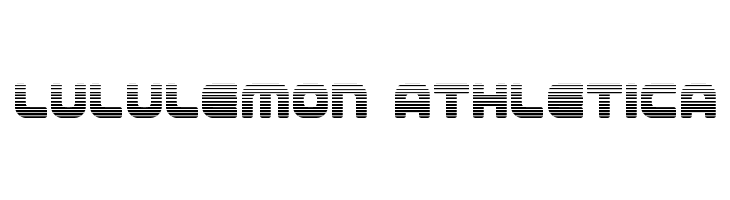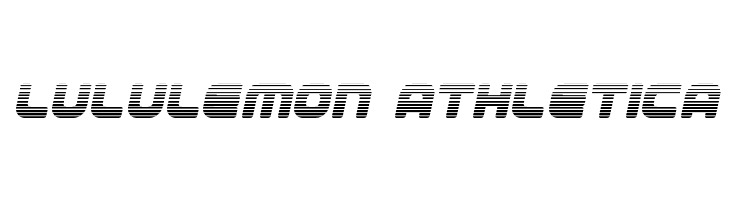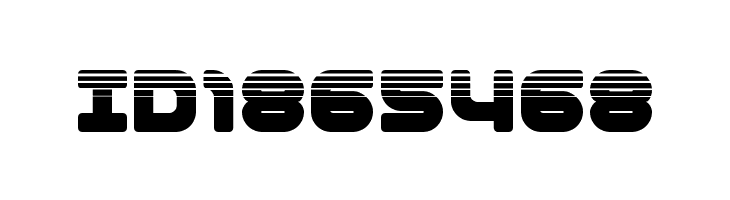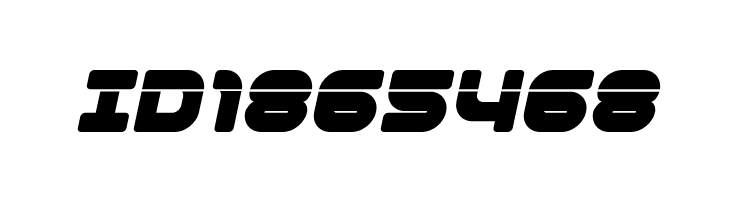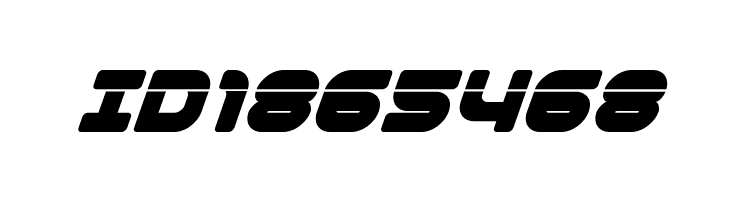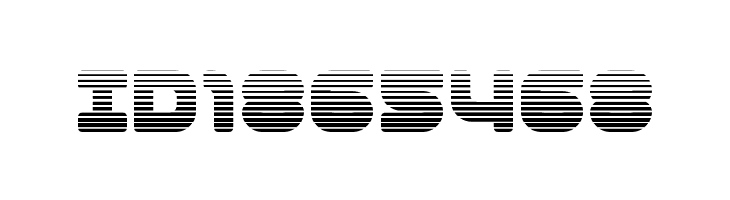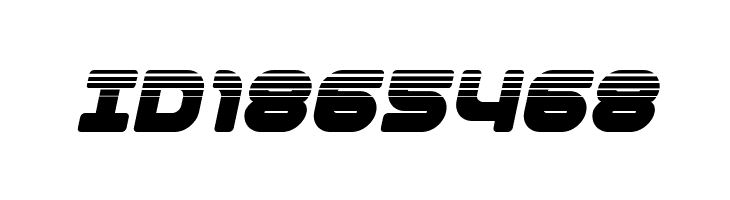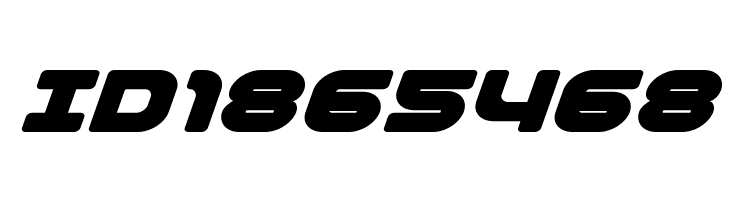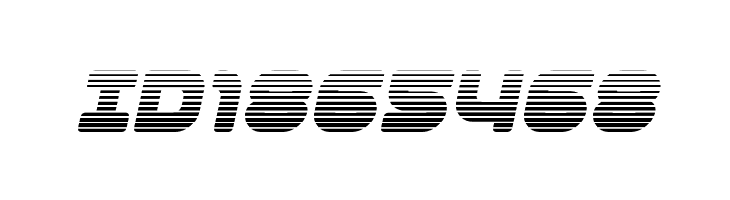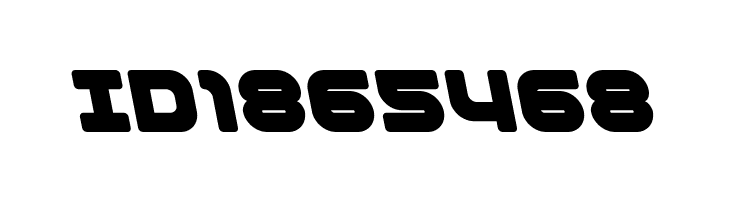
A bold, futuristic font with rounded edges and an expanded width.
A bold, futuristic font with a gradient effect created by horizontal lines.
A bold, italicized font with a gradient line effect, offering a modern and dynamic style.
A bold, futuristic font with a halftone effect and rounded edges.
A bold, italicized font with a futuristic halftone effect and dynamic appearance.
A bold, italic font with rounded, dynamic characters and medium contrast.
A bold, futuristic font with rounded edges and a geometric structure.
A bold, italic, futuristic font with rounded, geometric shapes.
A bold, italicized font with a futuristic and dynamic style.
A bold, rounded, and slightly italicized font with a futuristic style.